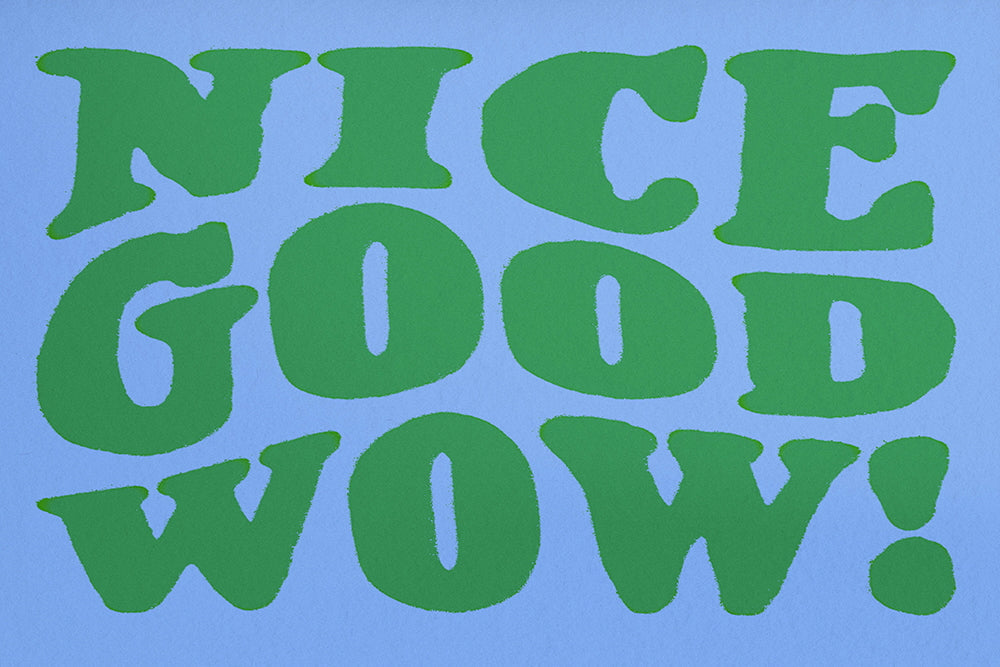
Best Hand-Drawn Fonts for Small Business Branding
Picking a font for your brand is a bigger decision than it feels like at first. It's not just a "which one looks nice" choice, it's about the feeling you want people to have when they see your logo, your packaging, your Instagram grid.
Clean, geometric fonts give a brand a modern, consistent feel. Handmade fonts, like handwriting or hand-lettering styles, add something different: a human touch. Neither one is better, it comes down to the feeling you're going for and what personality you want people to pick up on.
So if you're leaning toward a handmade feel, here's how I'd think through it, plus a few fonts worth checking out.
What a Handmade Font Actually Adds
A handmade or hand-lettered font carries a bit of the hand that made it: small wobbles, slightly uneven letterforms, little imperfections that make it feel less mass-produced. For a lot of small businesses, that's exactly the point. Your customers aren't just buying a product, they're buying into what you and your brand represent, and a font with personality can hint at that before they've read a single word.
That said, it's not automatic. A font can feel handmade and still miss the mark if it doesn't actually fit what your brand is trying to say. You can use this guide to pick fonts that fit the specific feeling you want your brand to express to your customer.
Finding the Right Feeling for Your Brand
Bold, Playful, Joyful
Puffie is a bold hand-lettered bubble font with rounded shapes and unique edges, built for designs that want to feel fun, approachable, and a little unpolished on purpose. Good for logos, quotes, and packaging that could use some extra joy. Best for: brands that want to feel fun and full of personality first, formality second.
Smoothie brings wiggly edges and smooth curves together for a playful, bold vibe that still feels put-together, with alternates and multilingual support built in. Best for: brands that want energy and movement without losing a clean, readable shape.
Kooky Cloud is made for "optimum kookiness," oddly bubbly and playful, with alternate letterforms that add extra character to logos, quotes, and signs. Best for: brands that want to feel bold and a little offbeat rather than polished.
Soft, Elegant, Quietly Polished
Softie Air is a "kinda fancy" hand-lettered serif, hand-painted for a wonderfully imperfect look. The rounded edges give it a soft, approachable appearance while staying balanced and easy to read. This one's newly added to the shop and isn't linked here yet, but it's real and on its way. Best for: brands that want warmth with a bit of polish, elegant without feeling cold.
Painted Serif brings hand-painted lettering into a classic but casual serif shape, with natural texture, soft edges, and a few subtle quirks. It's lively and warm, a little fancy without trying too hard. Best for: brands that want to feel a little fancy without going formal.
Storybook blends soft calligraphic movement with modern hand-lettering, sitting somewhere between script and serif. Elegant but still approachable, with a warm, nostalgic touch. Best for: brands that want a touch of nostalgia and vintage elegance.
Casual, Personal, Clean
Good Notes is a handwriting font set with three hand-drawn variations of every character, so nothing looks repeated. Clean enough to stay legible, personal enough to feel like a note instead of a template. Best for: brands that want to feel personal, like someone wrote you a handwritten note, without losing legibility.
Notie is texture-rich and built for everyday, casual handwritten use, with alternates that keep it from feeling stiff or repeated. Best for: brands that want to feel approachable and low-key, like a quick handwritten note rather than a formal statement.
Organic Hand blends the simplicity of print with the flow of script. Casual, natural, and clean. Best for: brands that want a relaxed, effortless, natural feel.
Imperfect is a handwritten sans serif with plenty of relaxed, handmade imperfections built in, a mix between genuine handwriting and hand-lettering. Best for: brands that want to feel friendly and easygoing, but still be trustworthy and professional.
Vintage, Bold, Retro-Leaning
Handmade Sans is inspired by vintage labels and old printing, hand-lettered with a bit of retro character built in. Great for logos, display text, and quotes when you want that handmade touch to carry some history with it. Best for: brands that want a bit of vintage weight behind their look, more established than experimental.
Quirkie is bursting with imperfect, handmade charm, chunky and odd-contrast with a playful vibe and big personality that doesn't need to look perfect. Best for: brands that want big personality and don't mind standing out a little.
Very Font Family mixes retro charm with a modern handmade feel, drawn by hand to capture a friendly, personal warmth. Best for: brands that want the warmth of nostalgia without feeling dated.
There's no single right font for small business branding, handmade or otherwise. It comes down to the feeling you want your brand to carry, and being honest about what that feeling actually is.
One thing worth planning for early: the font you pick isn't just for a logo. A brand usually needs at minimum a header, a subheader, and a body copy font. These show up in a lot of places depending on your business, packaging, social captions, email headers, maybe a sign in a shop window. It's worth picturing your brand fonts in those spaces as you decide what you want.